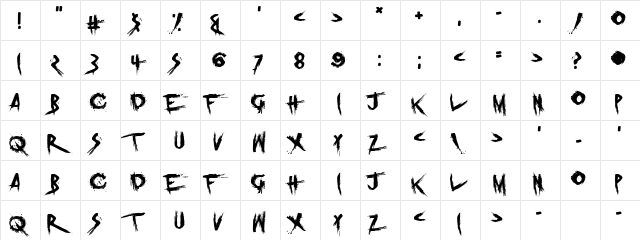
Prodigy Forever Regular
| Designer | Allison James |
Design Context for Prodigy Forever Typeface
Prodigy Forever is a composed and adaptable typeface that performs quietly and consistently across a wide range of design contexts.